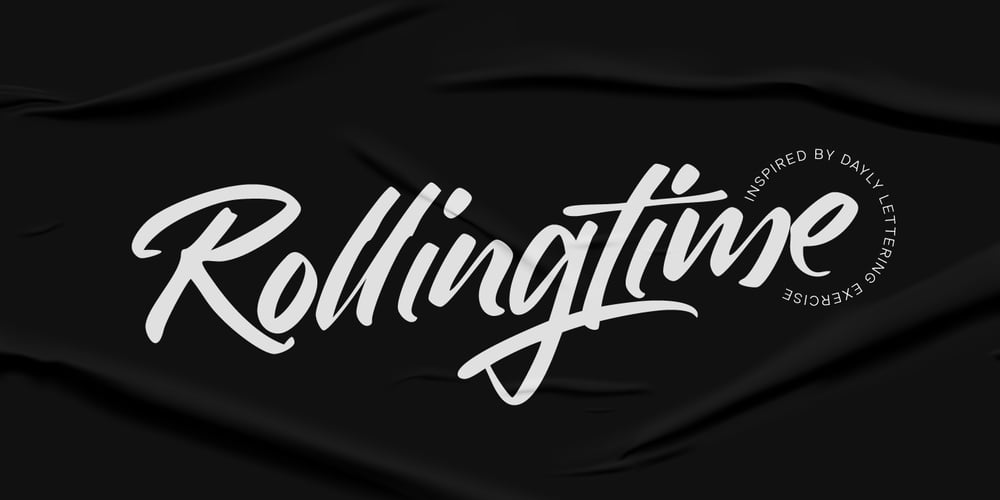
Rollingtime
Rollingtime font
Rollingtime Font Family was designed by Muhammad Ridha Agusni, Siti Saribanon Nurjannah and published by Cititype. Rollingtime contains 1 styles and family package options. ‘Rollingtime.’ is a bold script font with a graffiti style.this font looks natural. purely produced from hand sketches.we added a few ligatures to emphasize the natural impression.This font is great for logotypes, brands, website, header, writing quotes and graffiti.